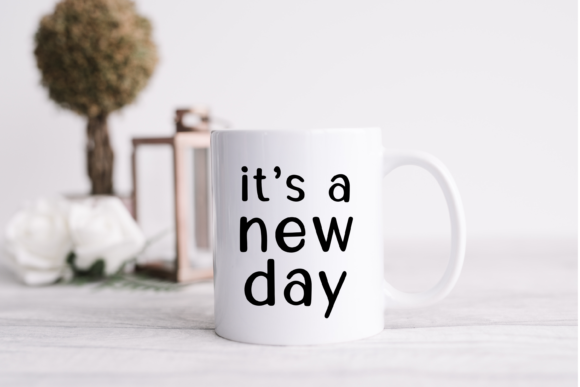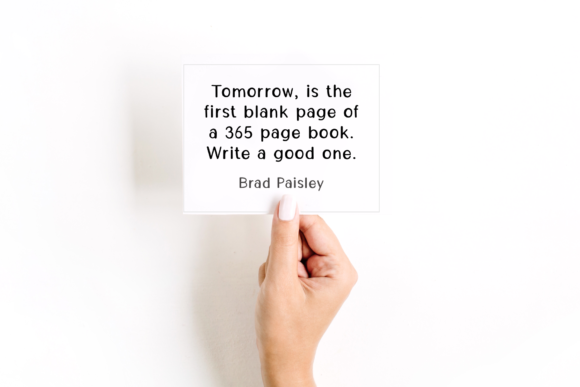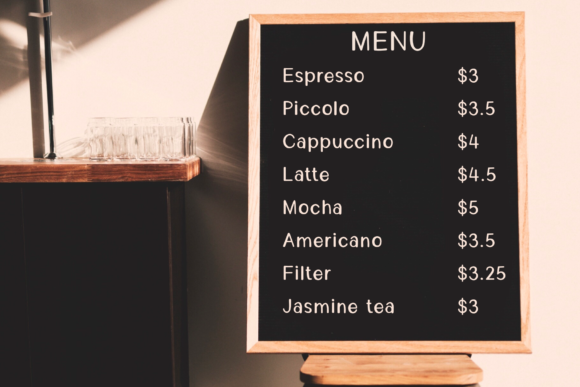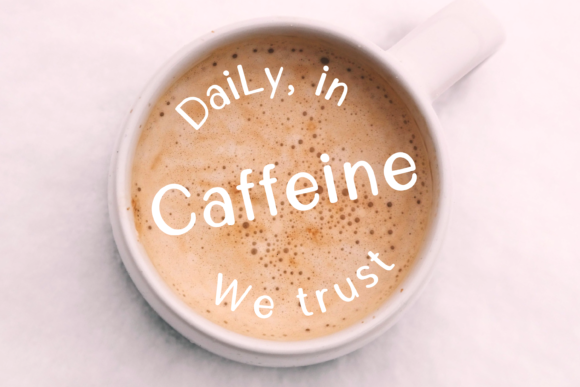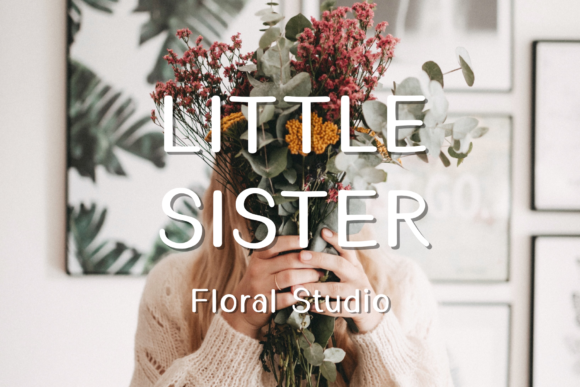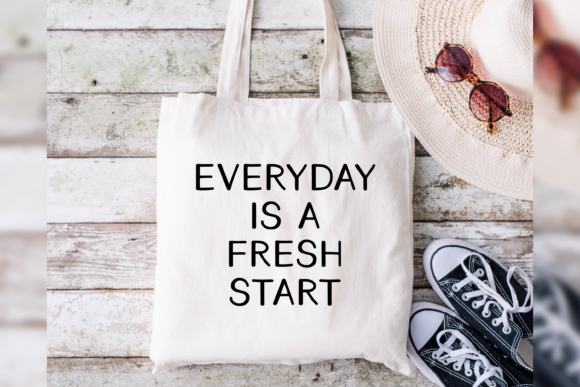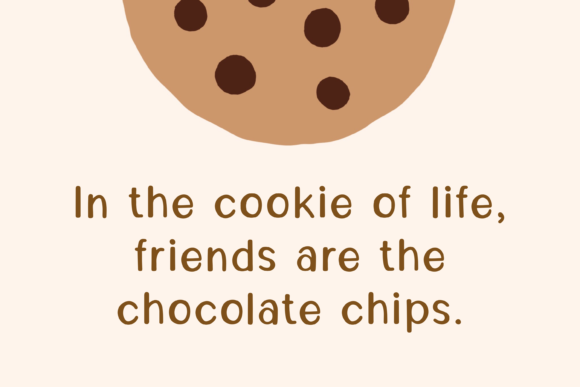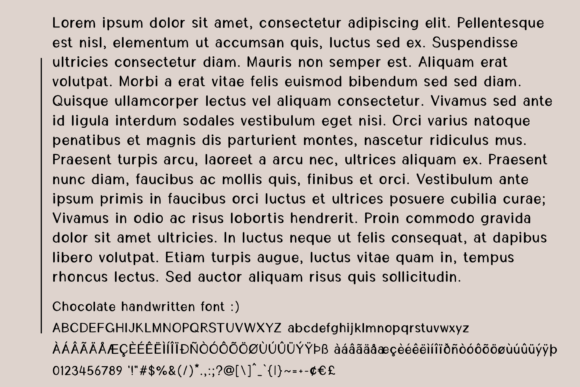
Chocolate Font
About Chocolate Font
Chocolate is a cute and simple hand-drawn font.
You can use this font for various projects, such as logos, branding, invitations, greeting cards, blog posts, and much more!